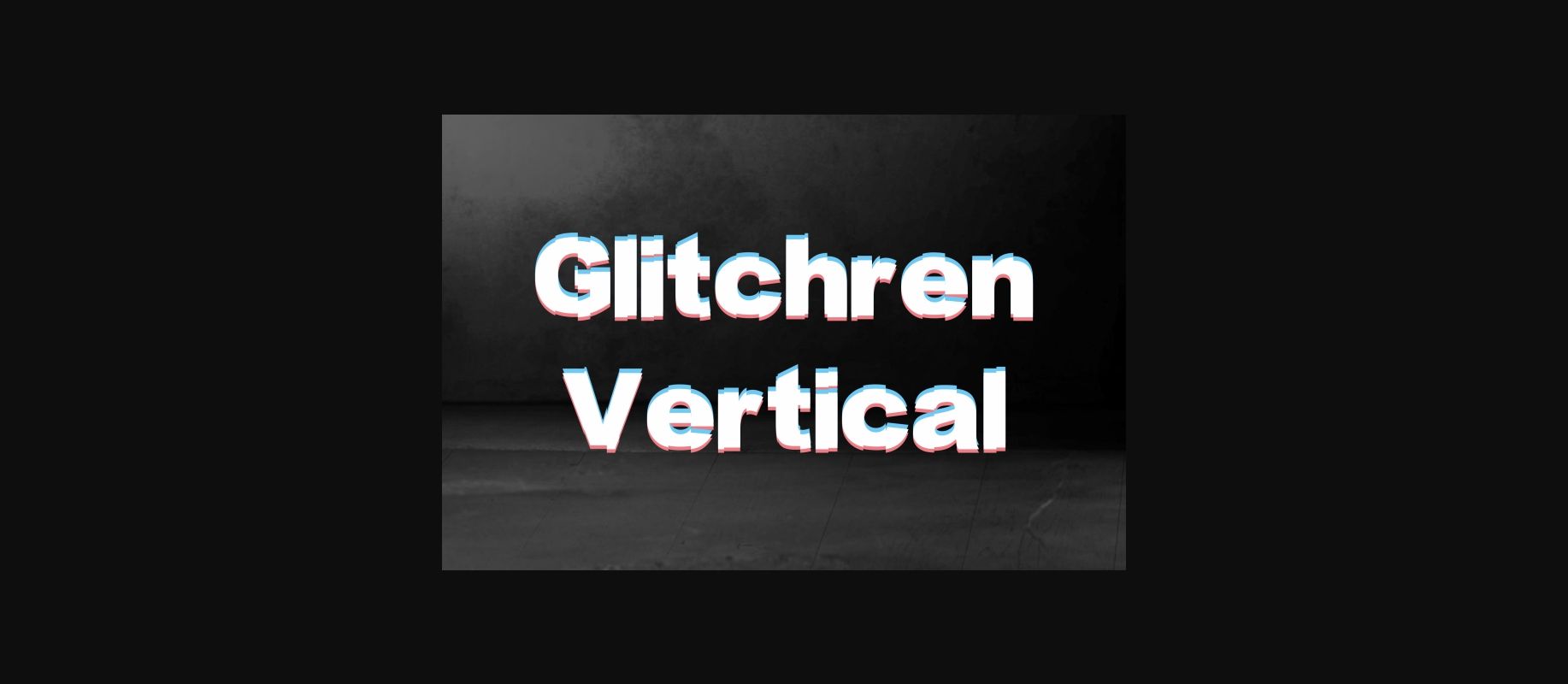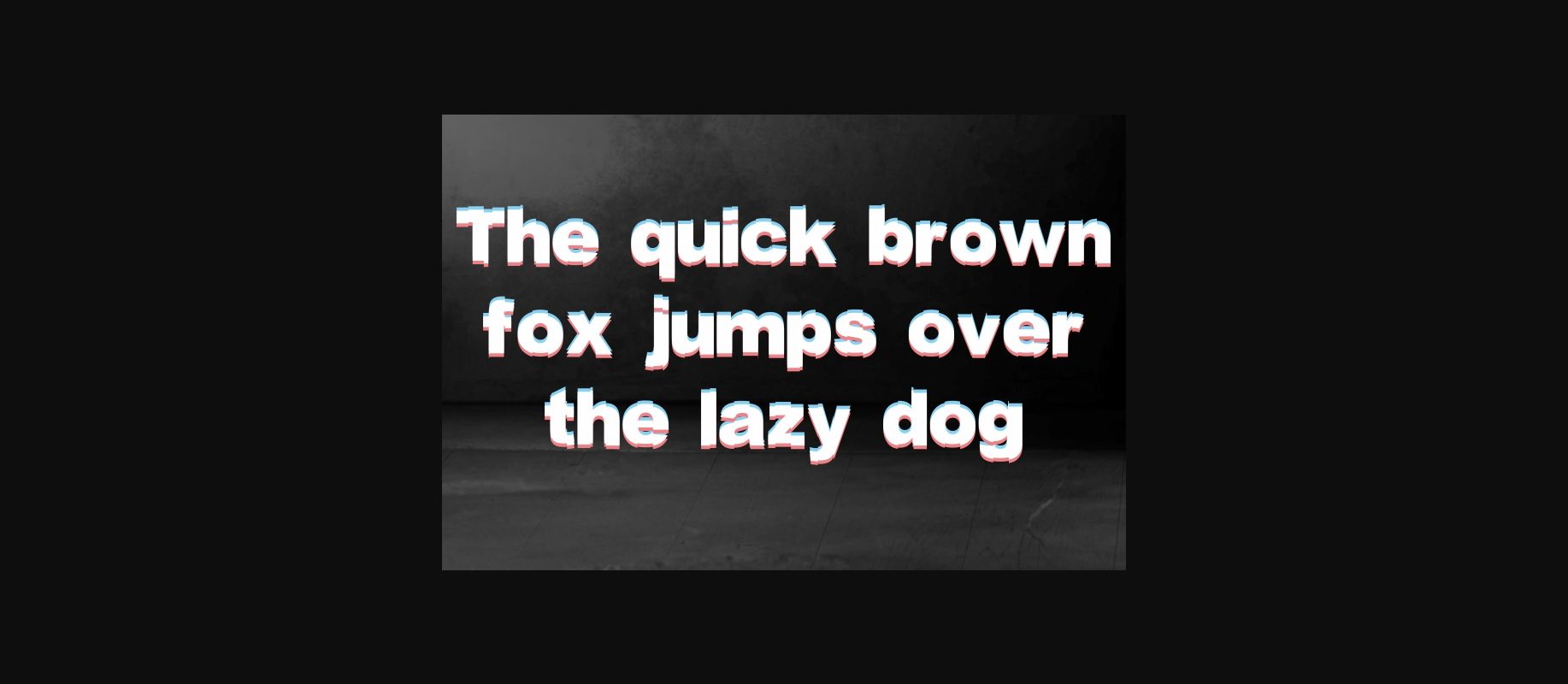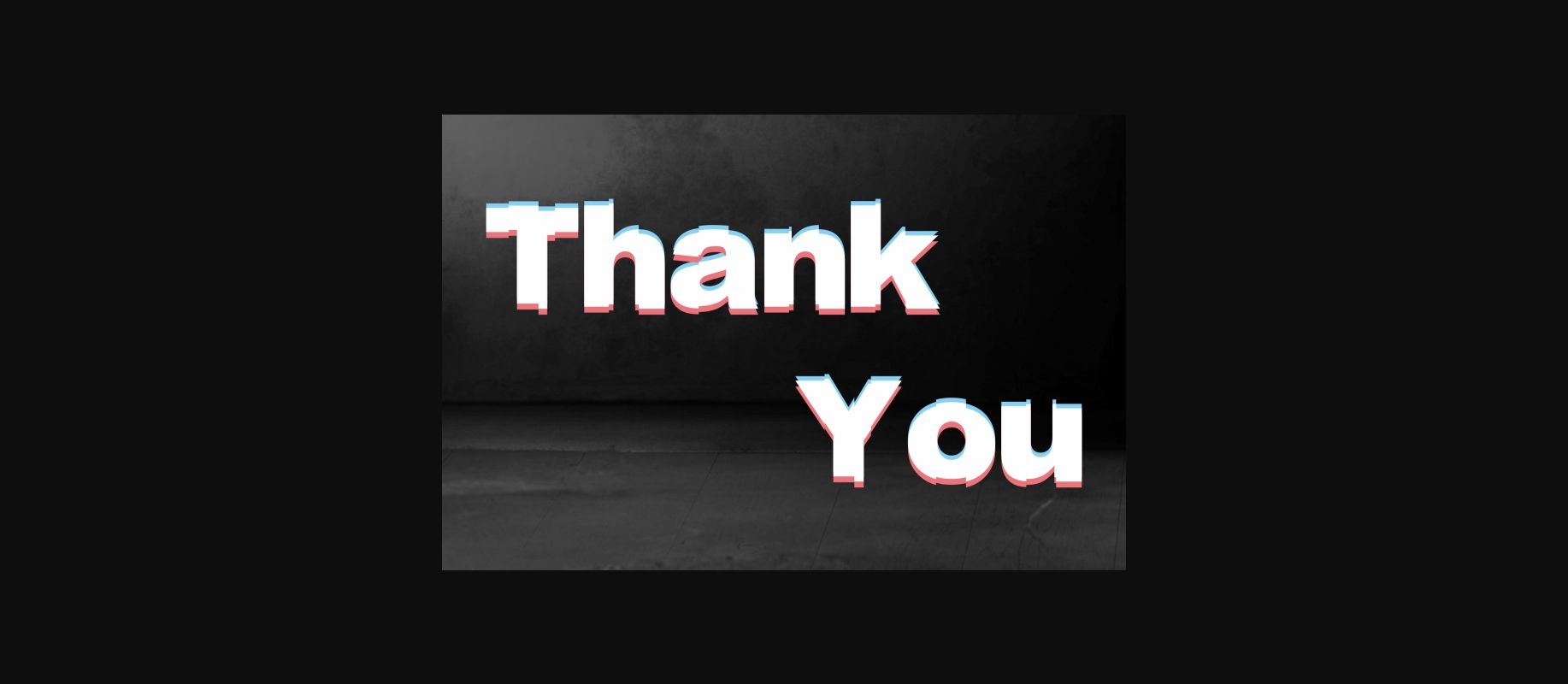
Glitchren Vertical Font
About Glitchren Vertical Font
Glitchren Vertical Is a vertical version of the amazing glitchren font. It will add a bold, digital feel to any design project!